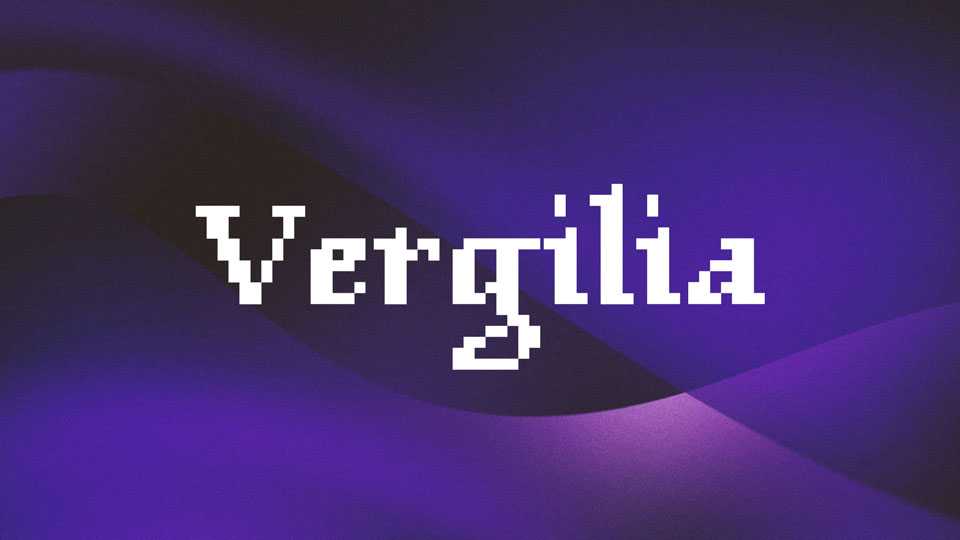
Download Vergilia font, a unique fusion of blackletter elegance and pixel precision. Verfilia font is crafted with sharp edges and defined pixels, capturing the essence of traditional blackletter typography in a digital format.